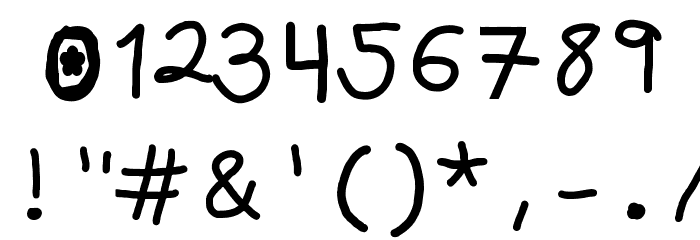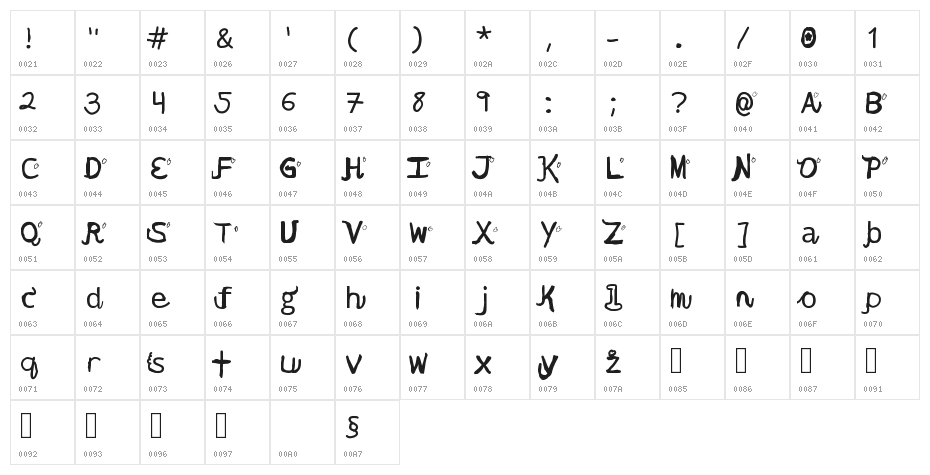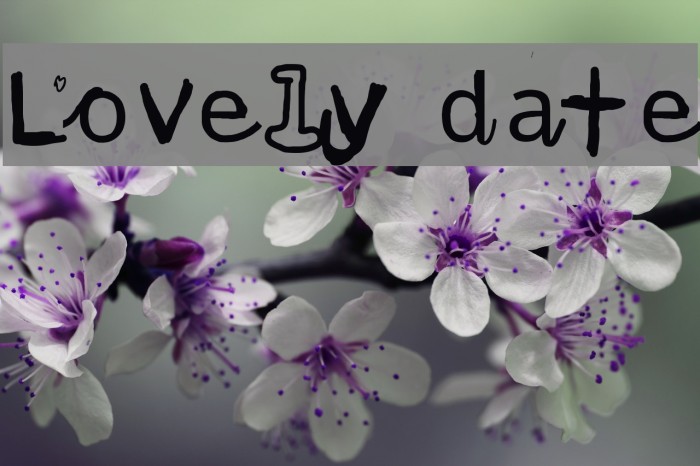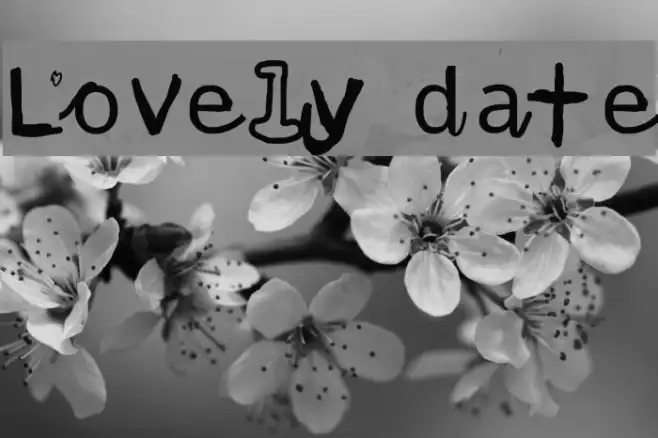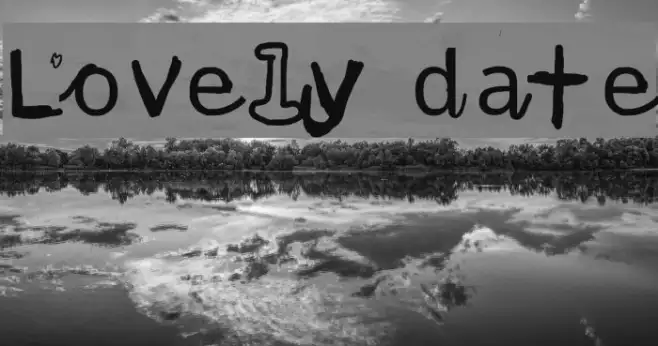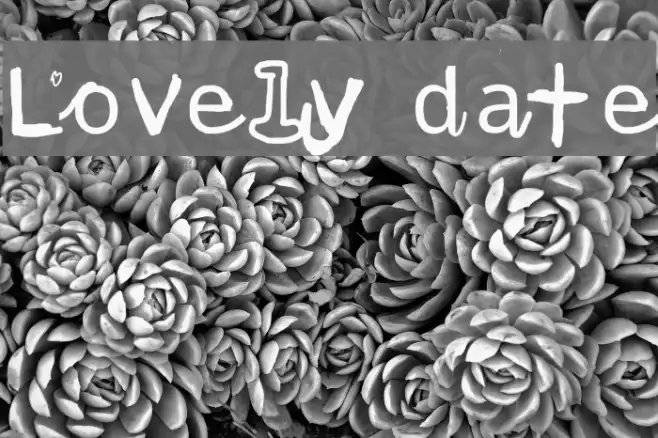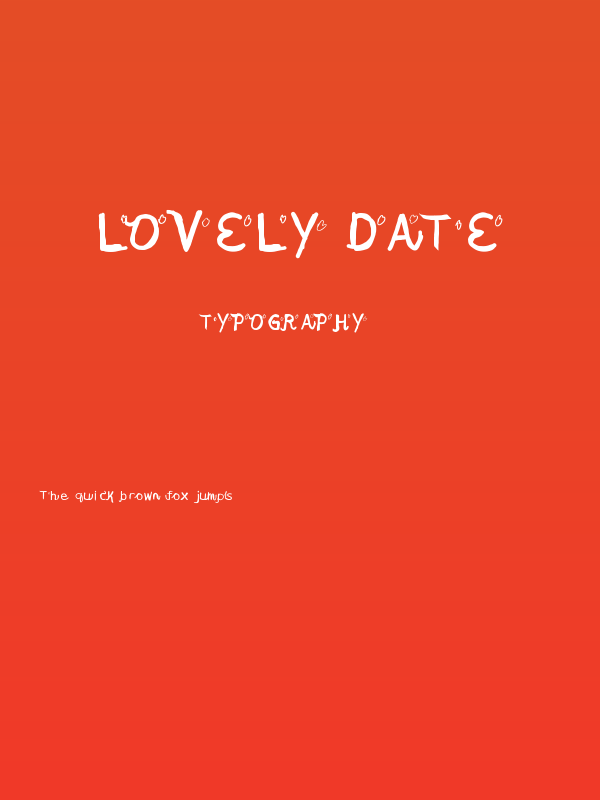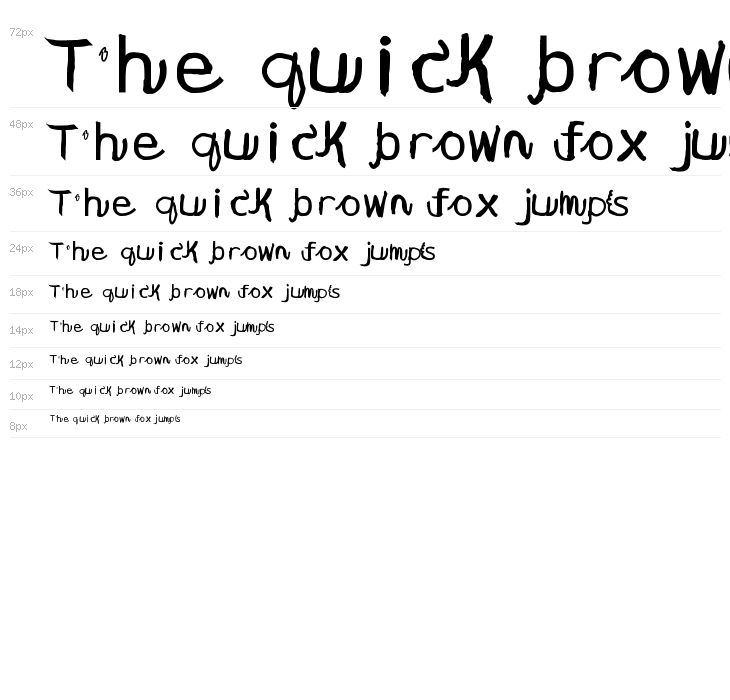
Lovely date Font
Lovely date Description
This playful and whimsical font features a hand-drawn style with irregular, wavy lines that give it a lively and informal appearance. The characters are adorned with small decorative elements, such as dots and loops, adding to its charm. The uppercase and lowercase letters maintain a consistent style, with a slightly uneven baseline that enhances its casual feel. Numbers and special characters are included, each with unique embellishments that match the overall aesthetic. This font is perfect for projects that require a fun and lighthearted touch.
| Proposed Projects | Ideal for children's books, greeting cards, playful branding, and creative posters. |